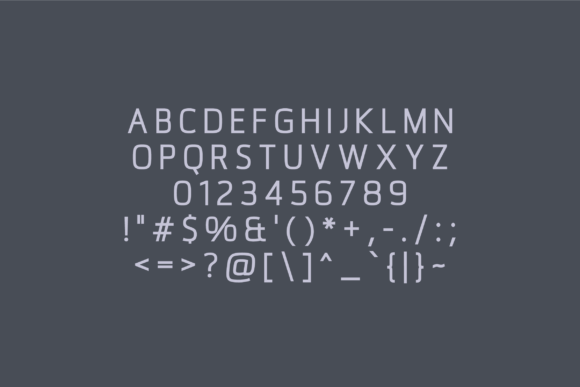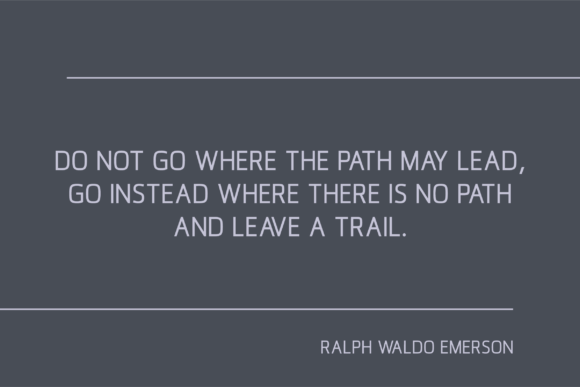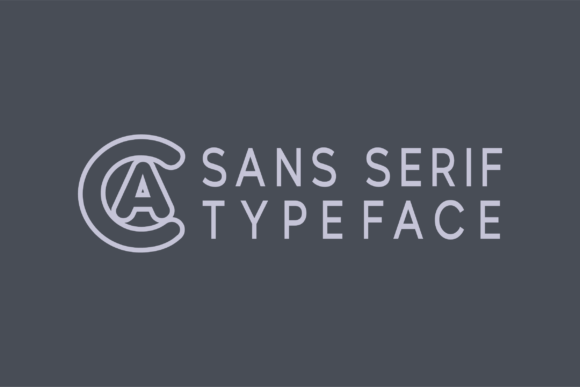
Introduction to Orpheis Font
Unveiling Orpheis, a contemporary and refined sans serif typeface that exudes a touch of charm and elegance.
This typeface ensemble offers a complete set, comprised of uppercase letters, digits from 0 to 9, along with a diverse selection of punctuation and symbols Endowed with immense versatility, Orpheis elegantly adorns logos, wedding invites and adds an echo of grace to personalized quotes.